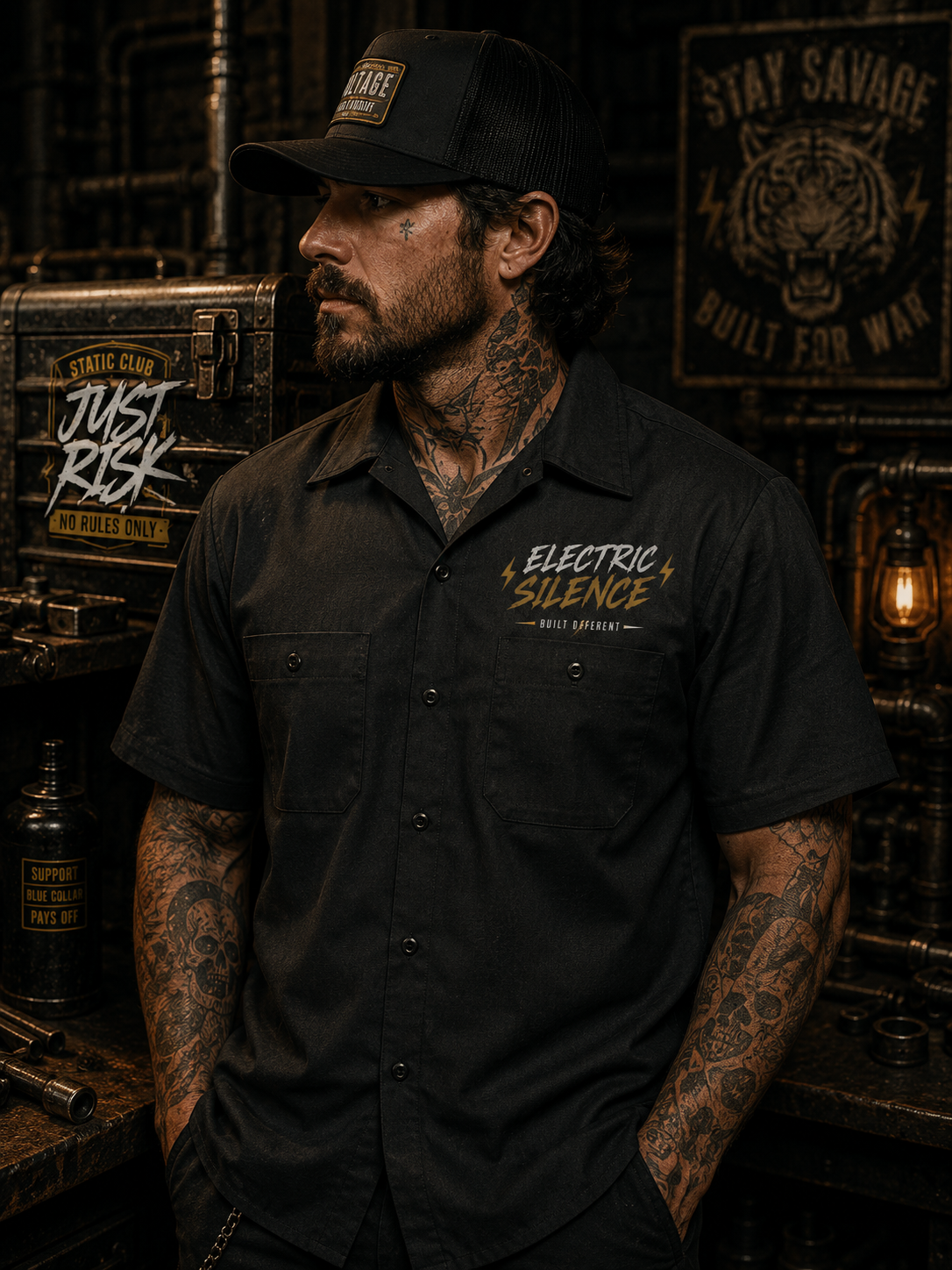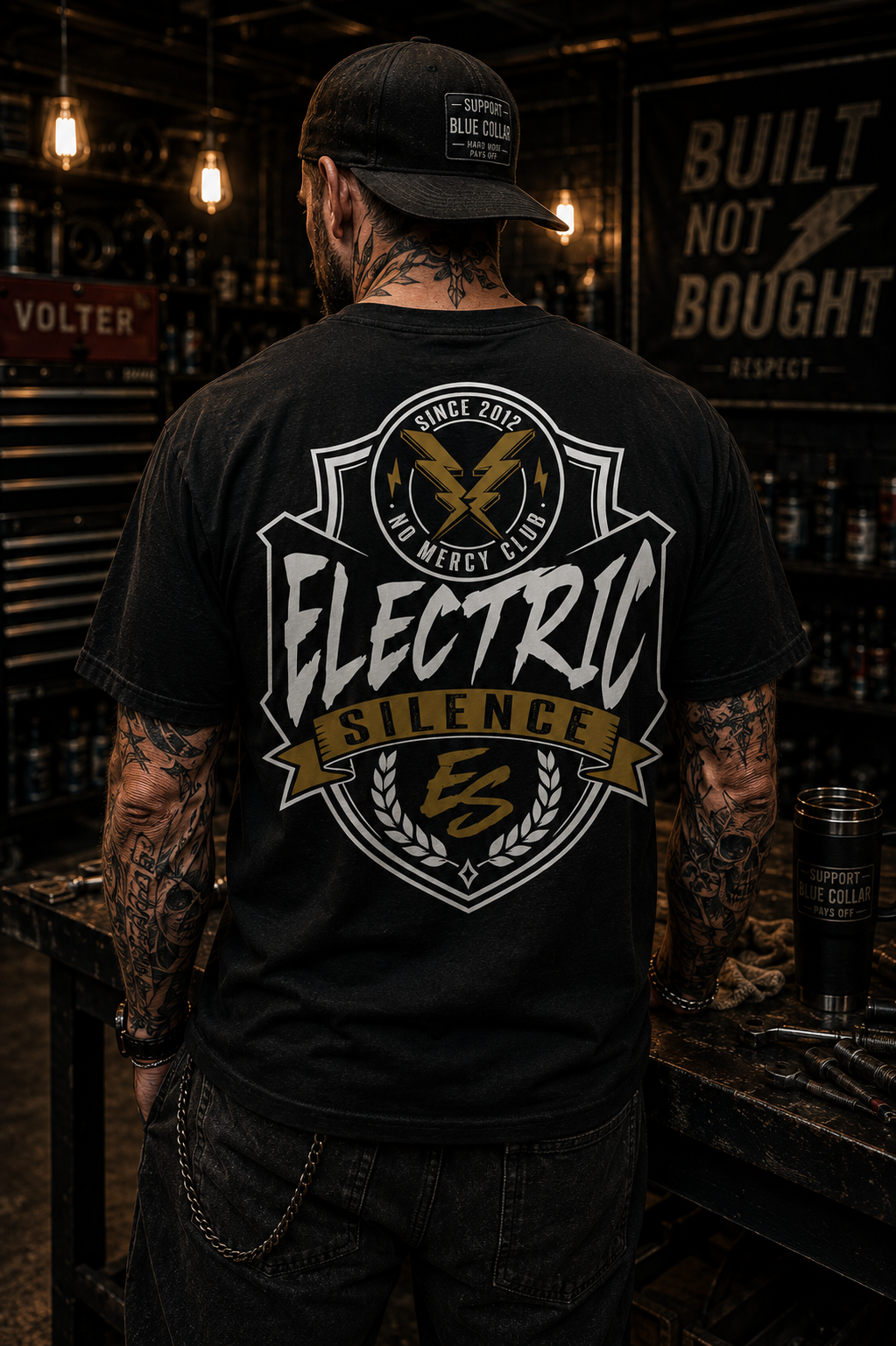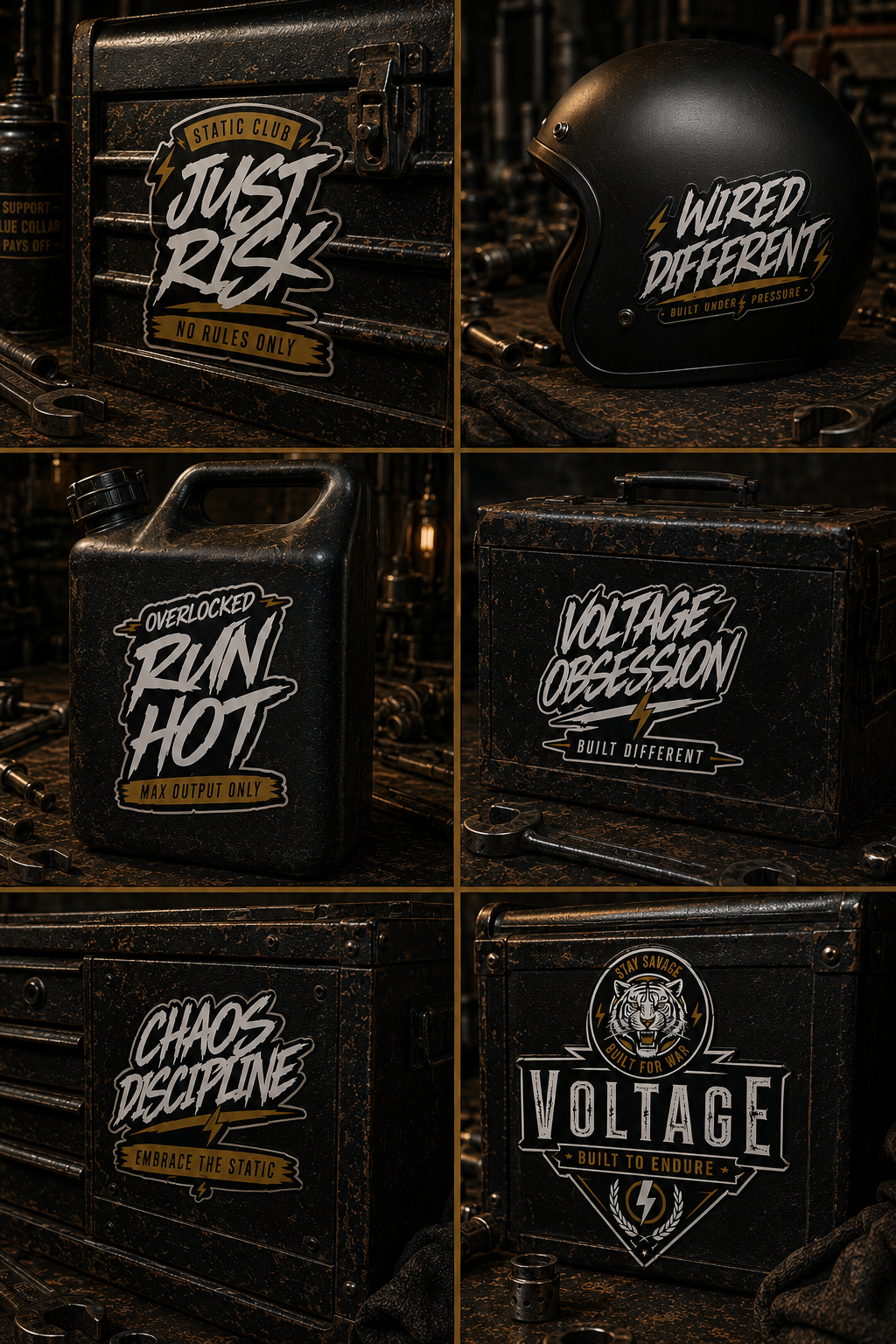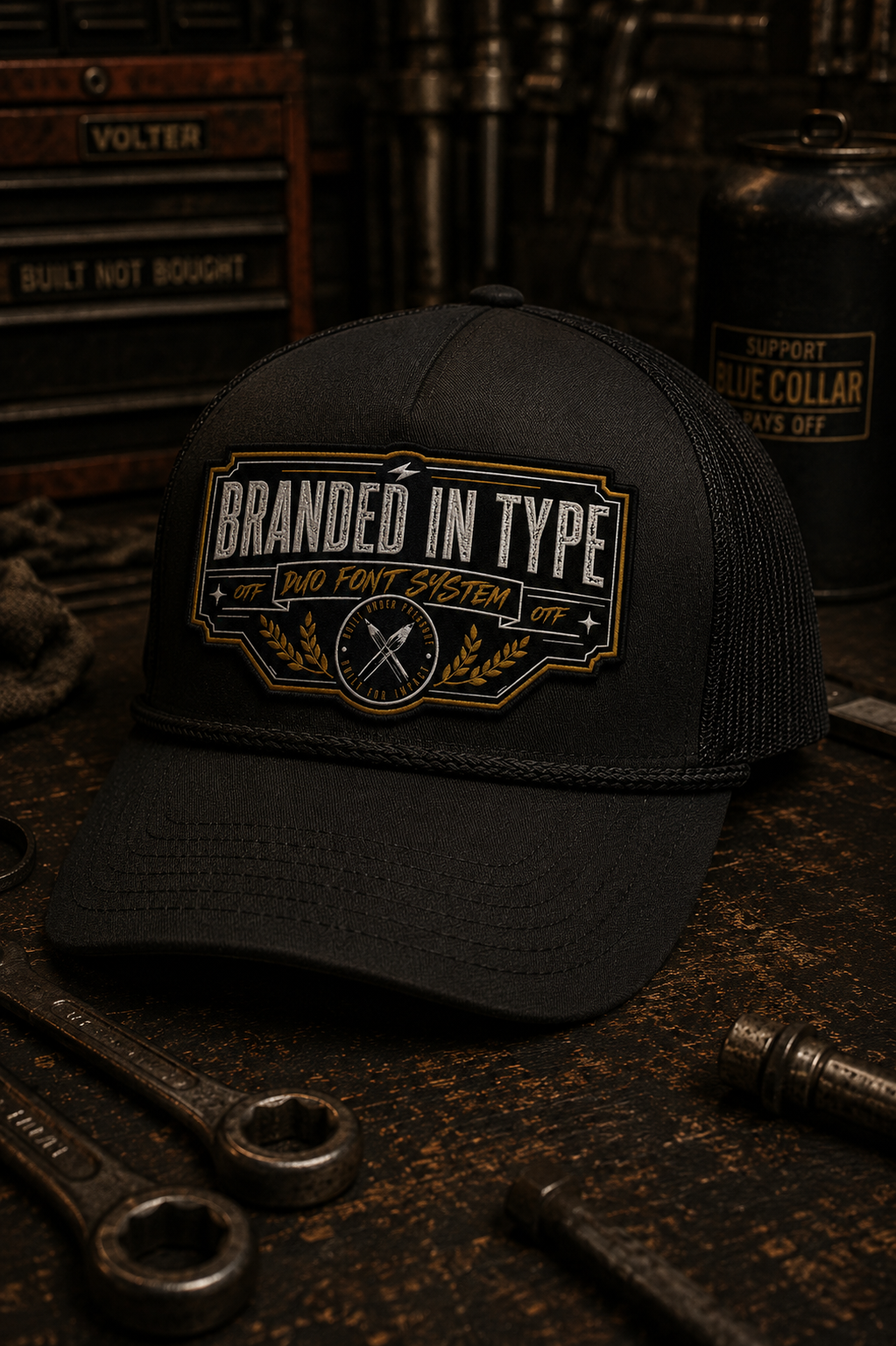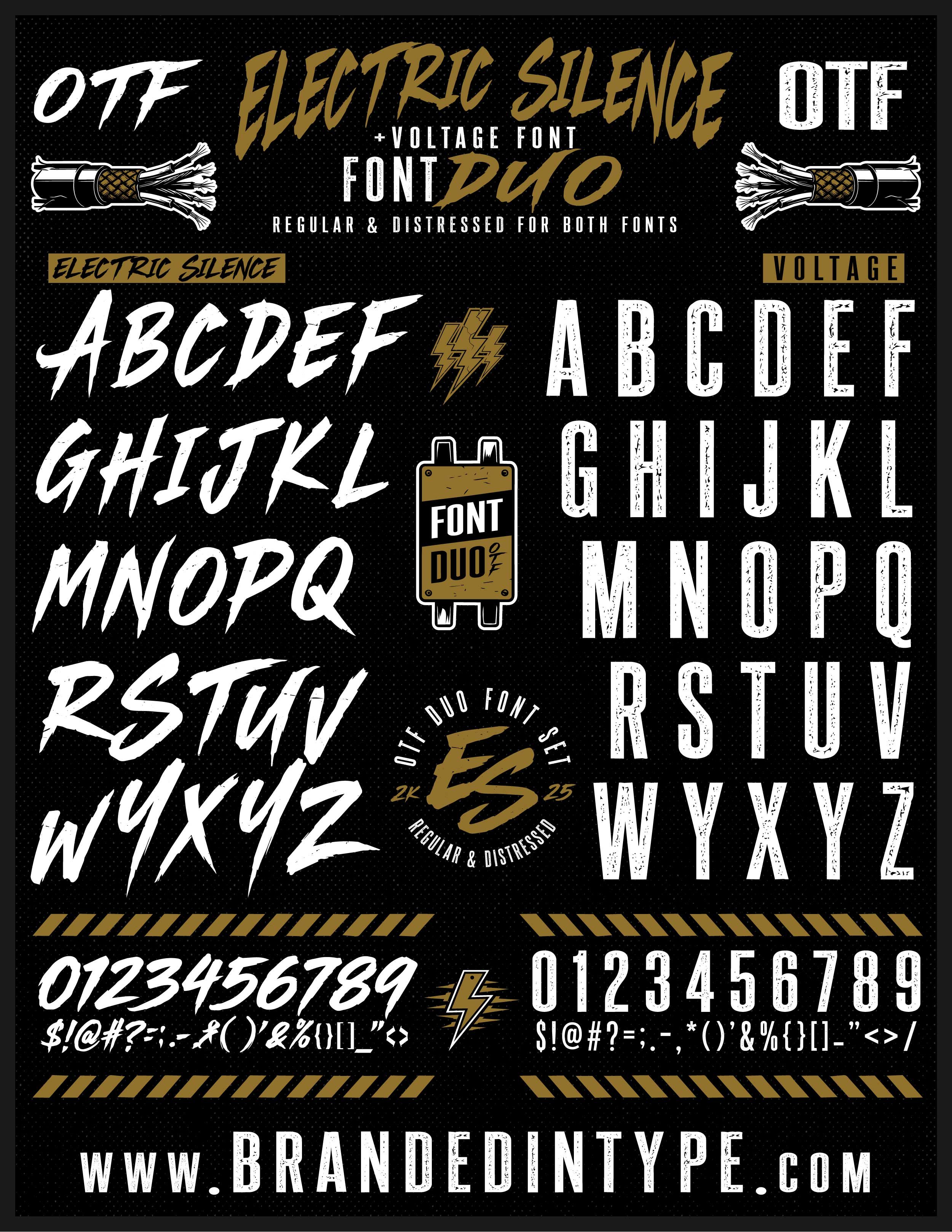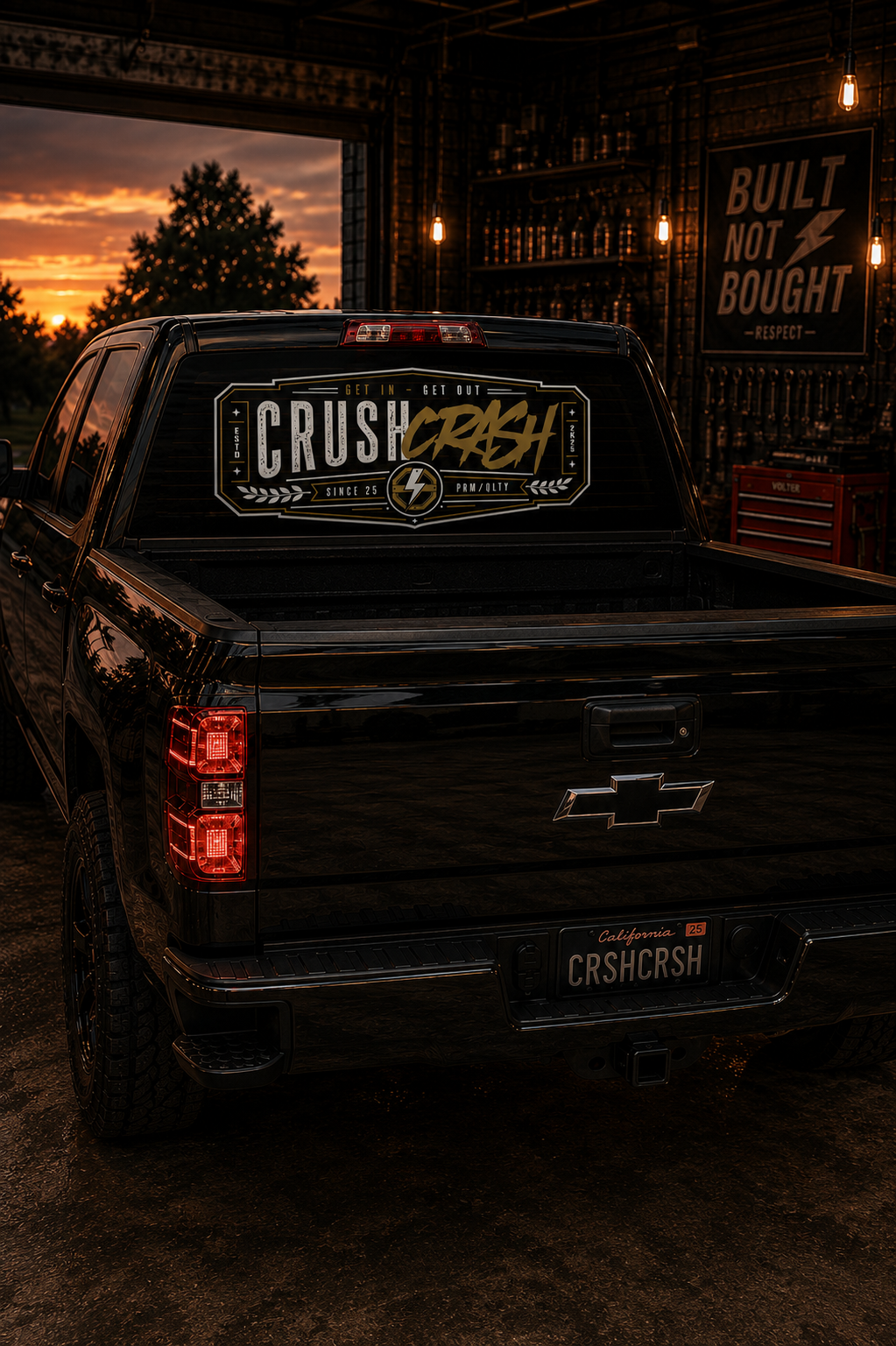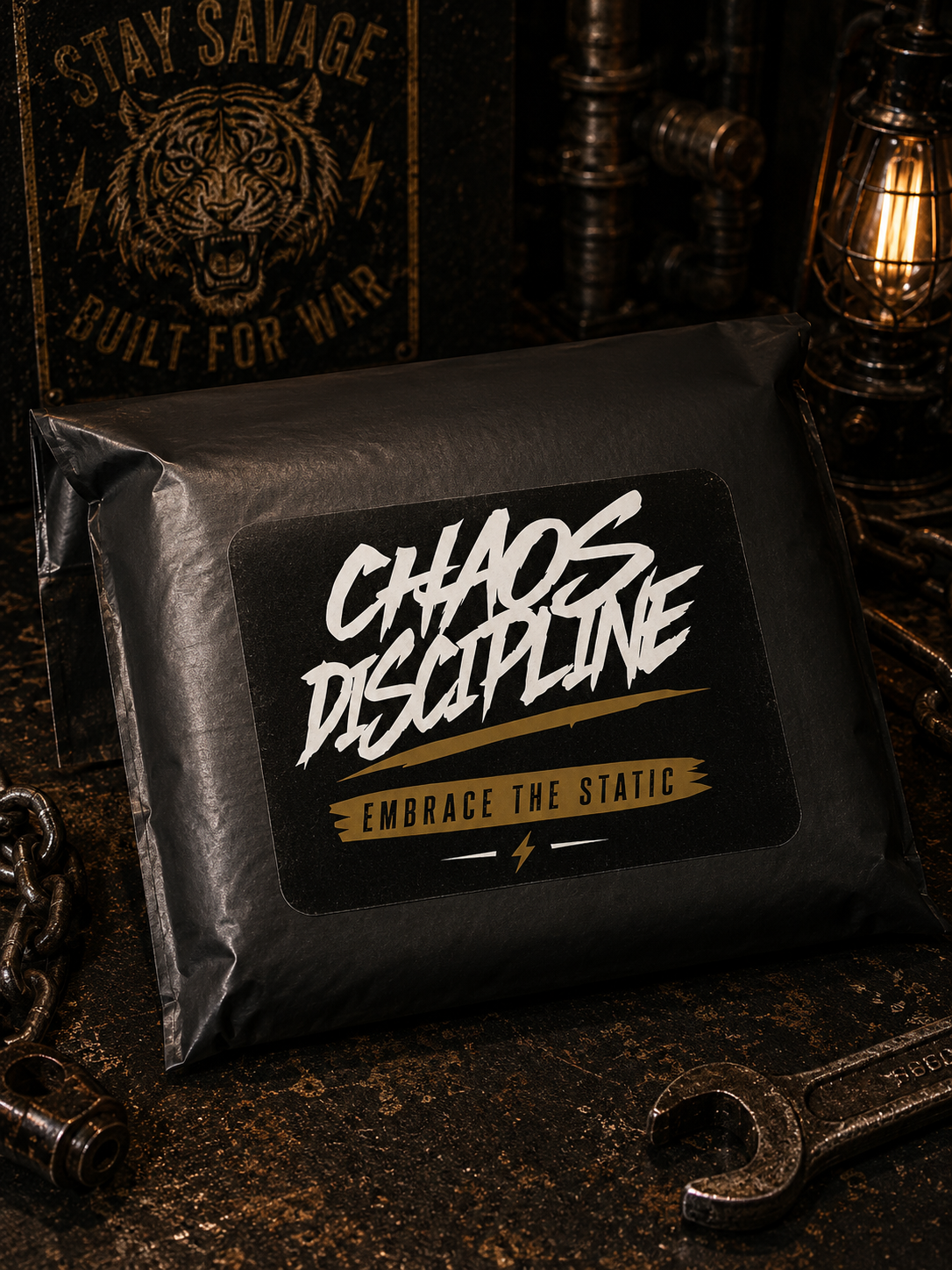
ELECTRIC SILENCE + VOLTAGE - FONT DUO
Built for designers who want the typography without the full branding asset system.
Includes both Electric Silence and Voltage with clean + distressed versions, giving you a versatile font duo built for logos, apparel, streetwear, stickers, branding, and promotional design work.
PERFECT FOR
logos
apparel graphics
streetwear brands
tattoo branding
barbershop branding
stickers
flyers
social content
client work